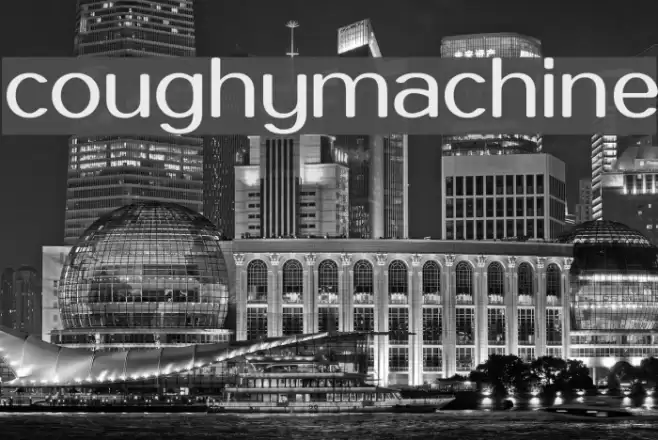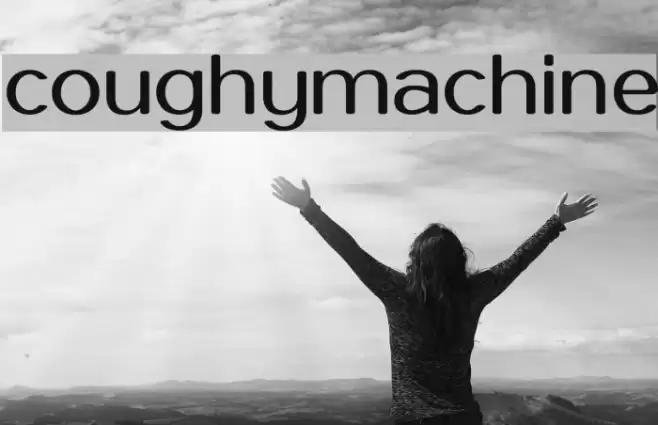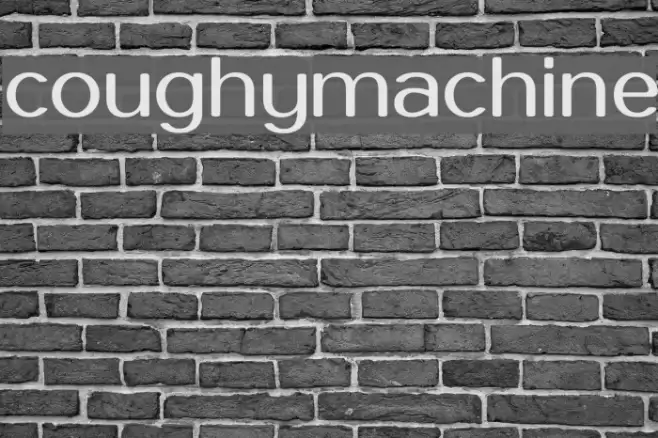
coughymachine Font
coughymachine Description
This font features a clean and modern sans-serif style with smooth curves and a uniform stroke width. The characters are well-balanced, offering a harmonious appearance that is both professional and approachable. The uppercase letters are bold and prominent, while the lowercase letters maintain a friendly and inviting feel. The numerals are clear and easy to read, making them suitable for various applications. Special characters are included, providing versatility for different design needs. The overall design is minimalistic, emphasizing readability and simplicity.
A modern, clean sans-serif font with smooth curves and uniform strokes from Uncategorized fonts.